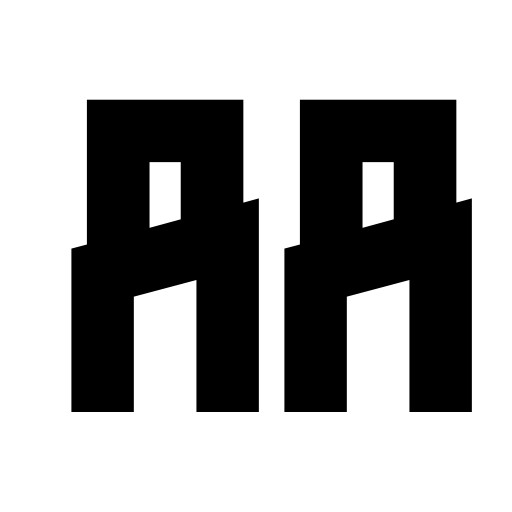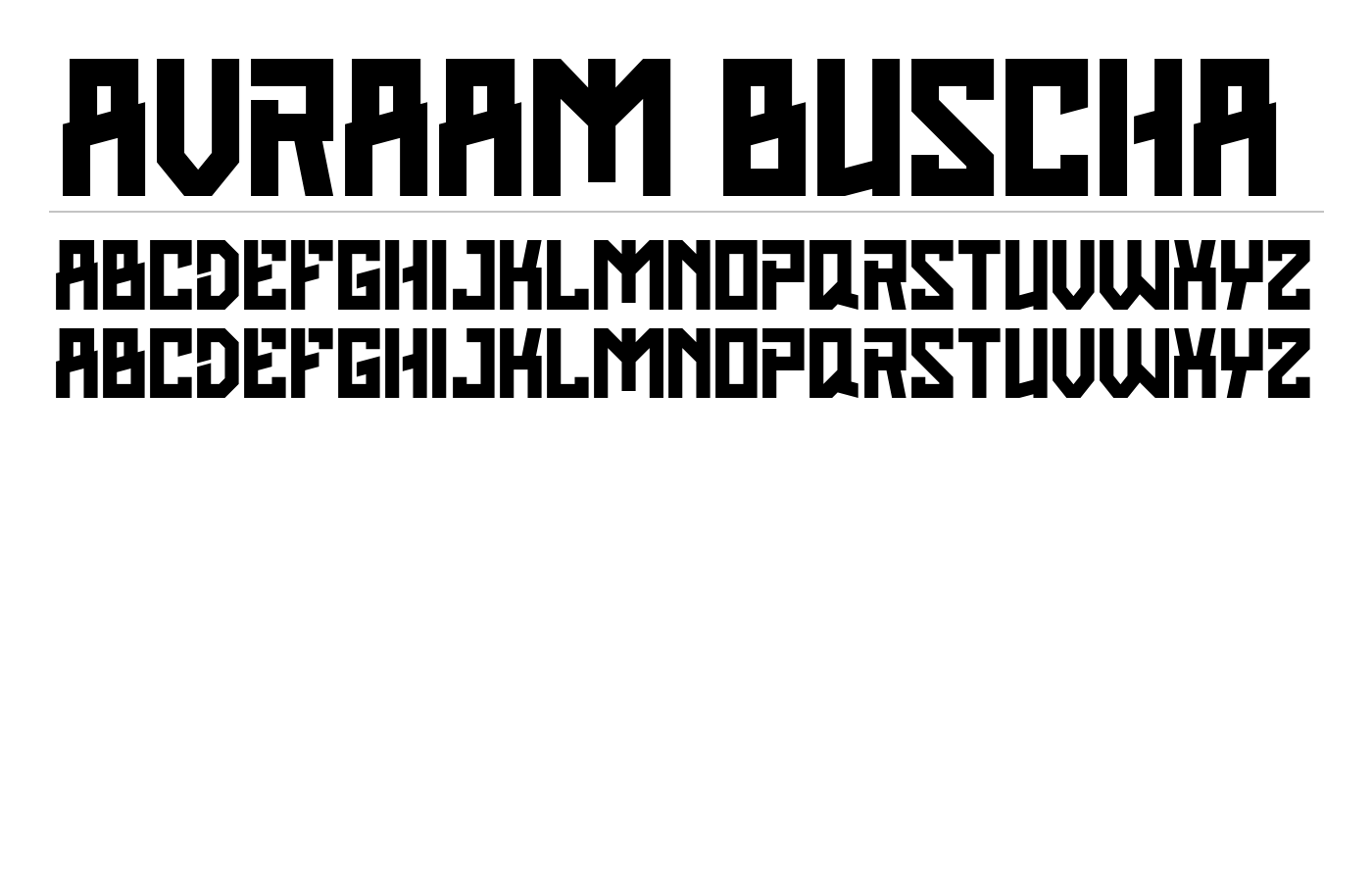
AVRAAM BUSCHA is a bold, condensed sans serif with a striking, angular design that commands attention. Its strong geometric shapes and heavy weight give it a modern, industrial feel perfect for impactful headlines, logos, and branding that needs a daring, confident character. This font works especially well in projects seeking a futuristic or edgy vibe with a sense of strength and individuality.
AVRAAM BUSCHA Font
About AVRAAM BUSCHA Font